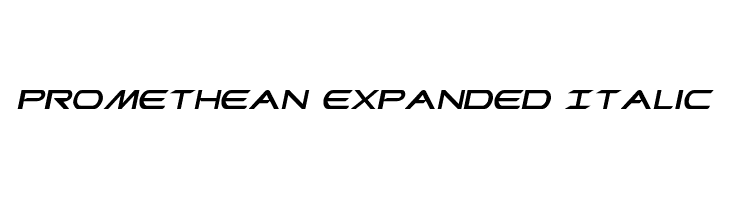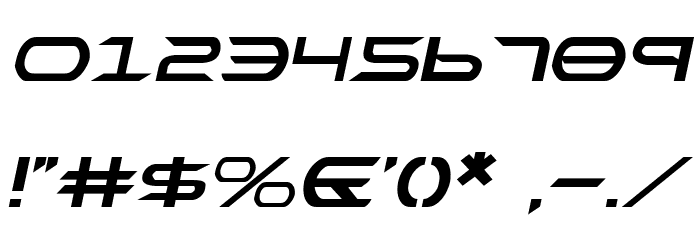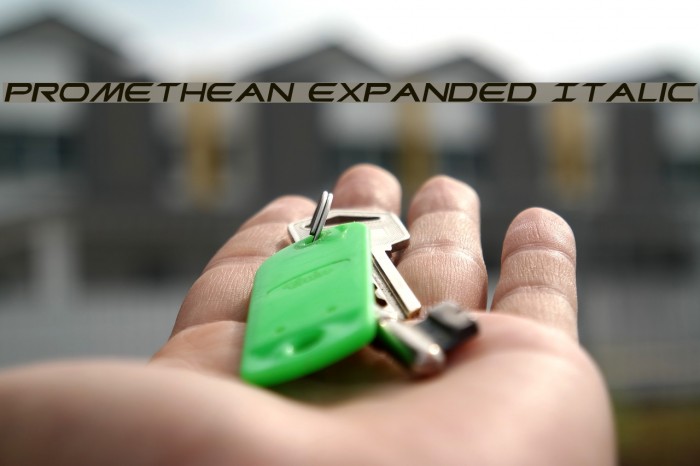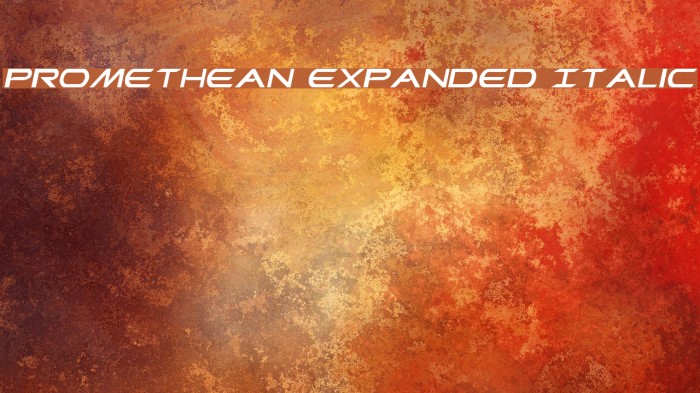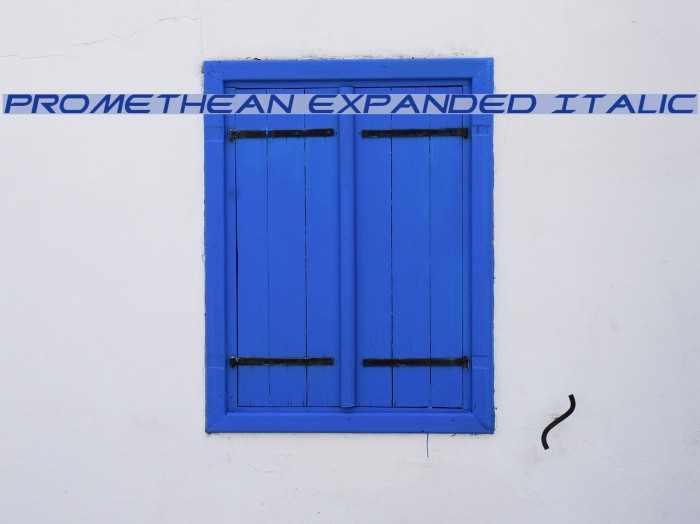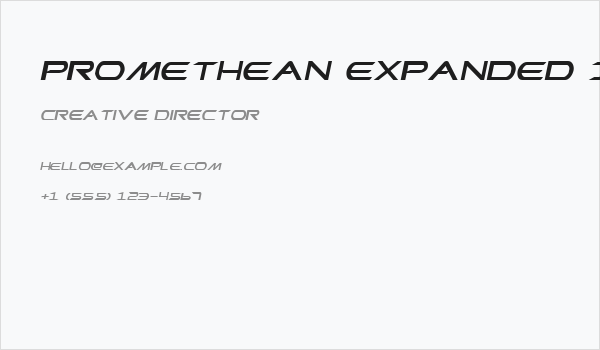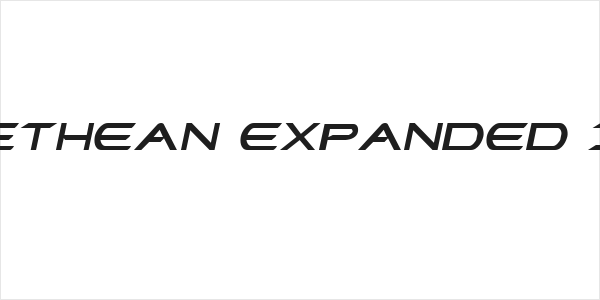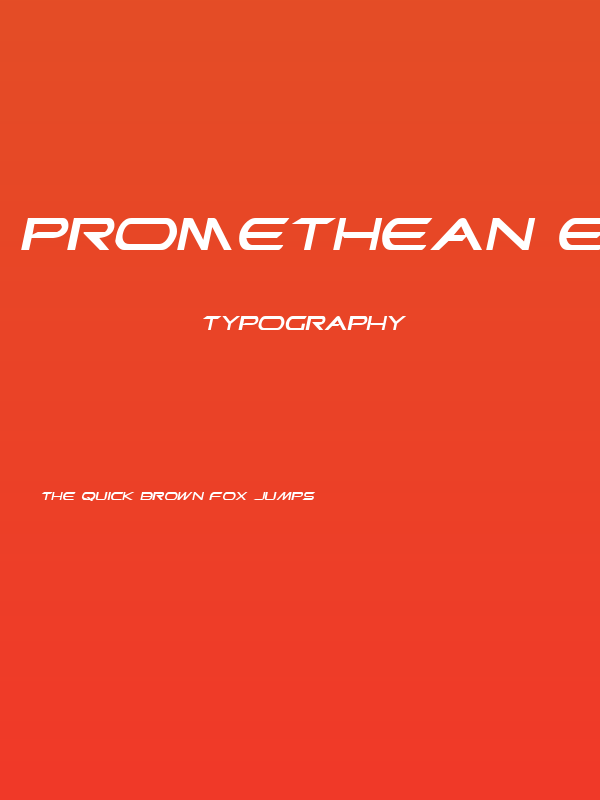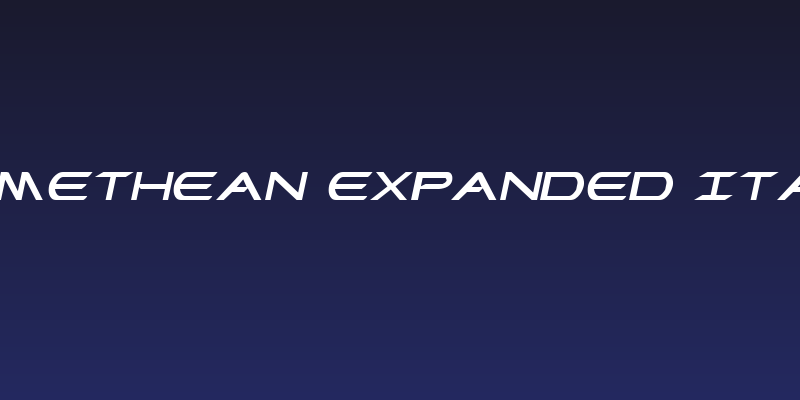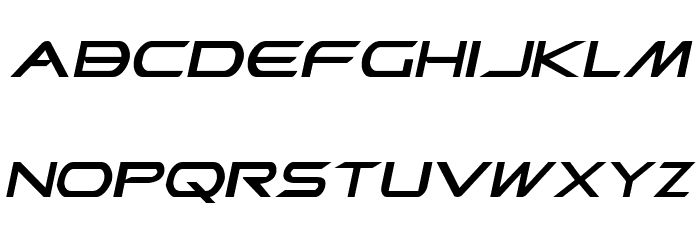
Promethean Expanded Italic Font
Promethean Expanded Italic Description
This font features a dynamic and futuristic design with an expanded and italicized style. The characters are sleek and angular, giving a sense of motion and modernity. The uppercase and lowercase letters maintain a consistent slant, enhancing the italic effect. The numbers and special characters follow the same stylistic cues, ensuring uniformity across all glyphs. The font's expanded width allows for a bold presence, making it ideal for attention-grabbing designs. Its unique style is suitable for projects that require a modern and edgy aesthetic.
| Proposed Projects | Ideal for sci-fi themed designs, technology branding, video game titles, and modern advertising. |